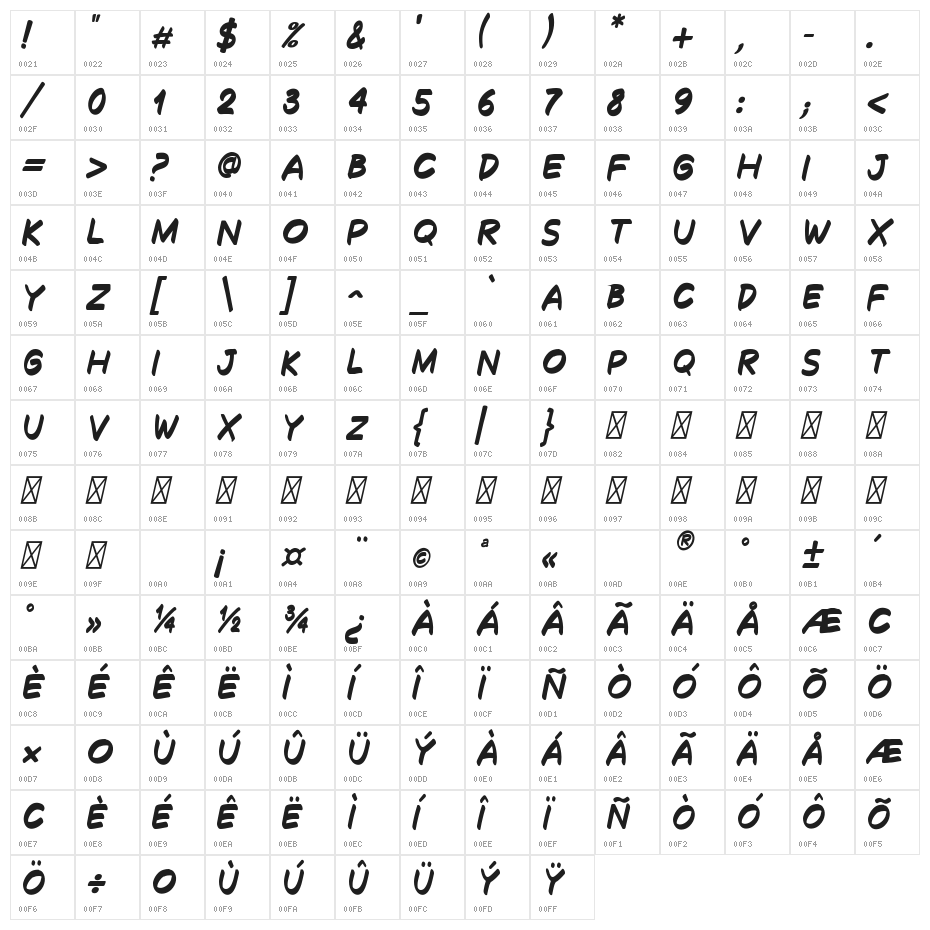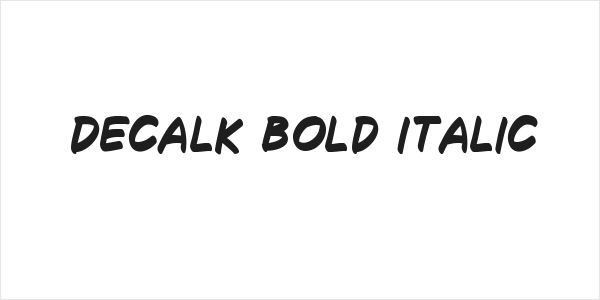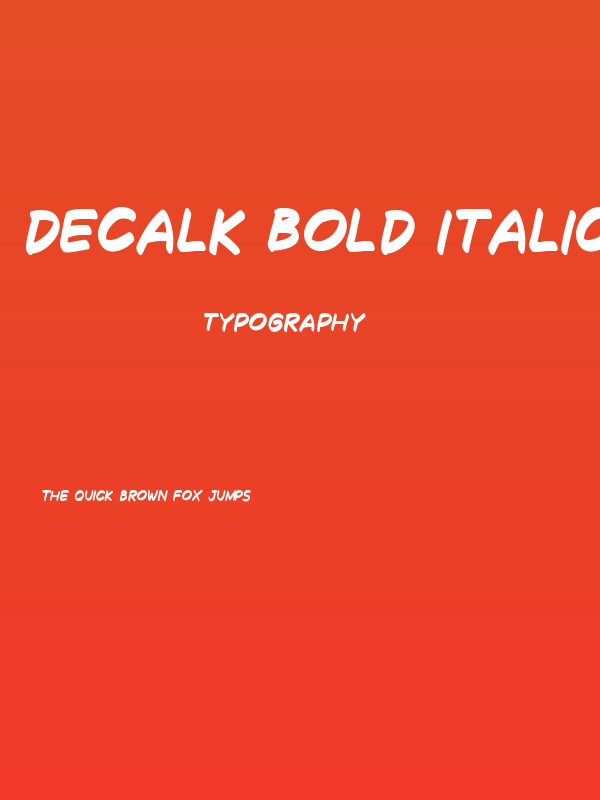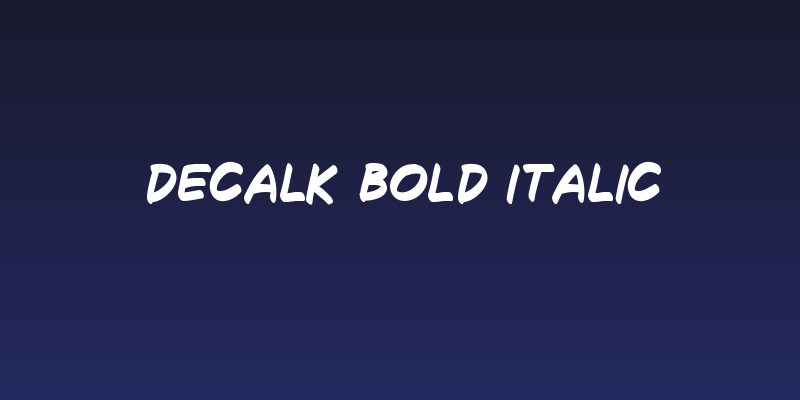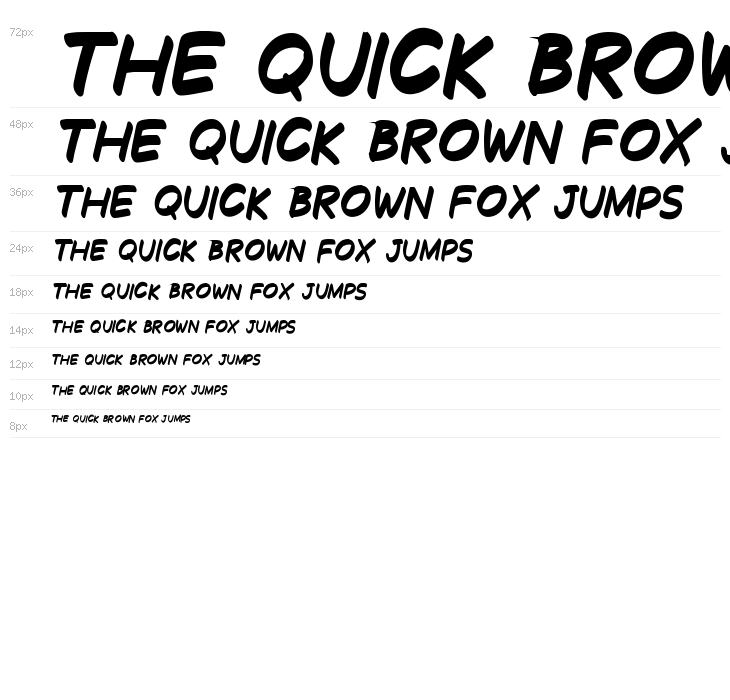
Decalk Bold Italic Font
Decalk Bold Italic Description
This font features a bold and italicized style with a handwritten appearance. The characters are slightly slanted, giving a dynamic and energetic feel. The strokes are thick and consistent, providing a strong presence on the page. The uppercase and lowercase letters maintain a cohesive look, with rounded edges and smooth curves. The numbers and special characters follow the same stylistic approach, ensuring uniformity across all glyphs. This font is ideal for projects that require a bold statement with a casual and approachable tone.
Overall StyleCasual, Dynamic
Proposed ProjectsIdeal for posters, branding, social media graphics, and any design needing a bold, casual touch.